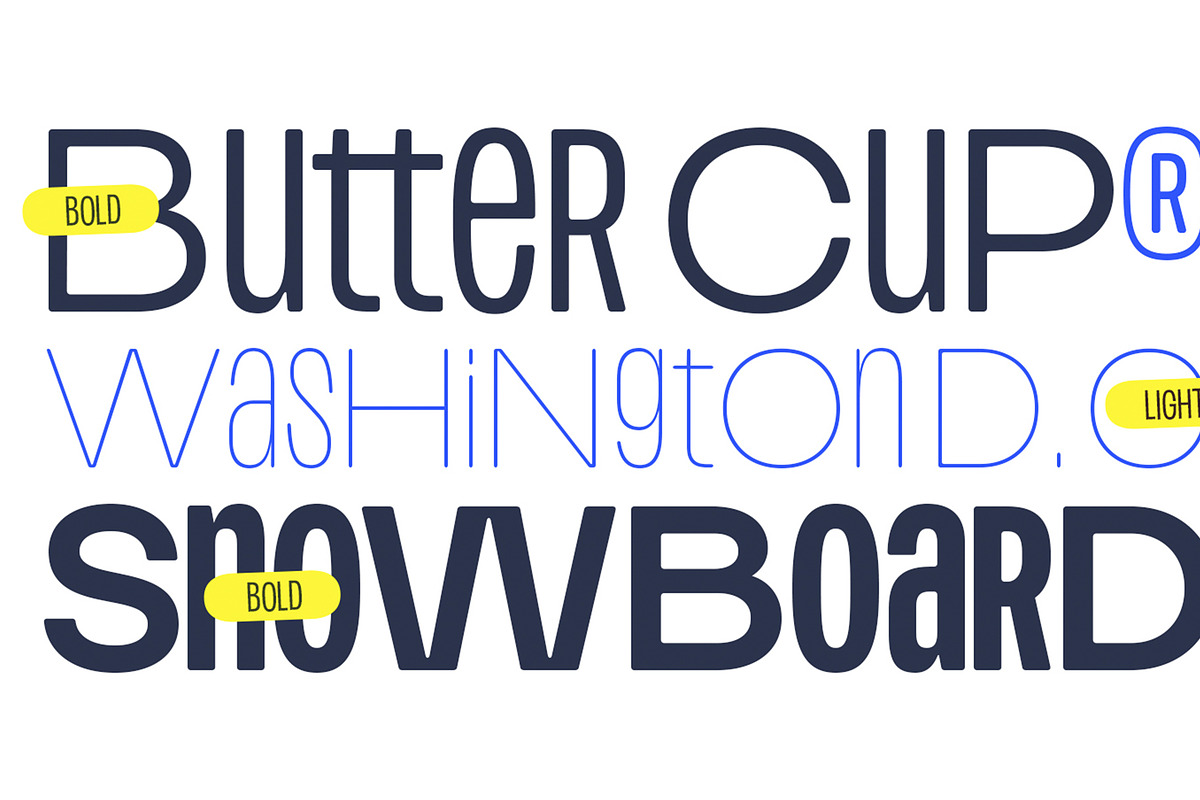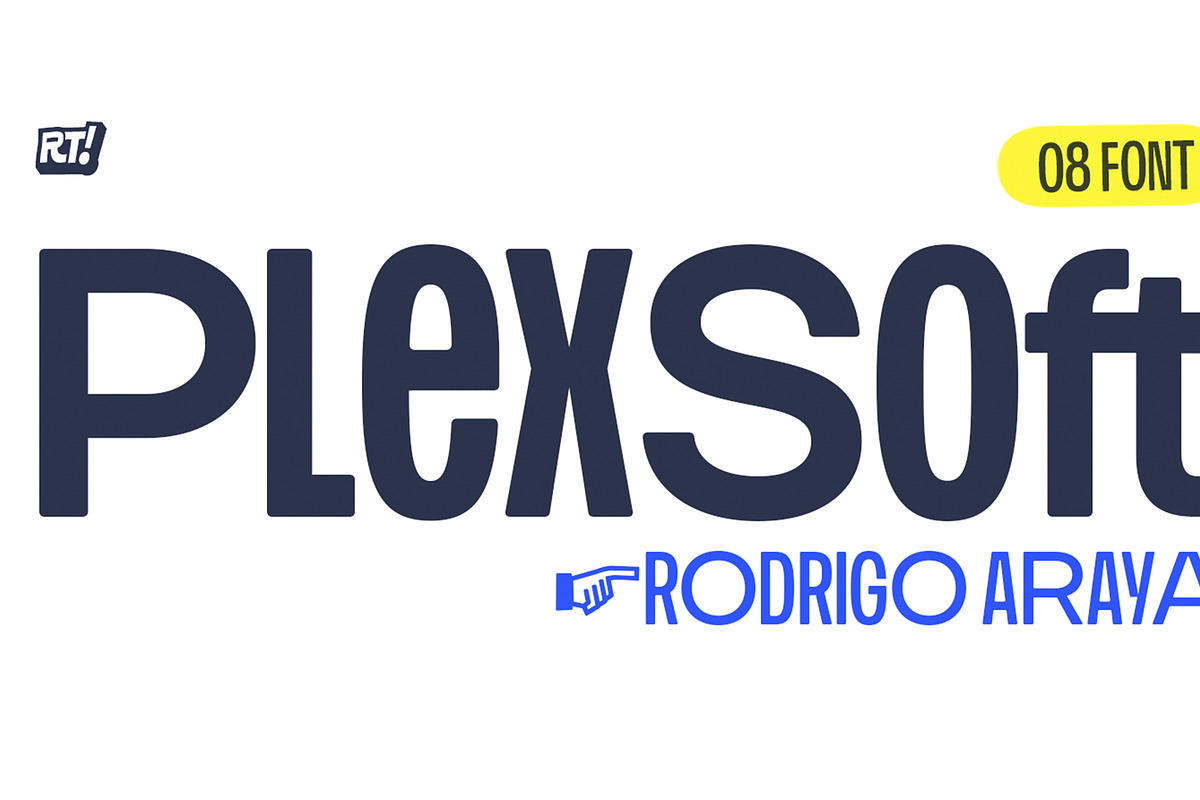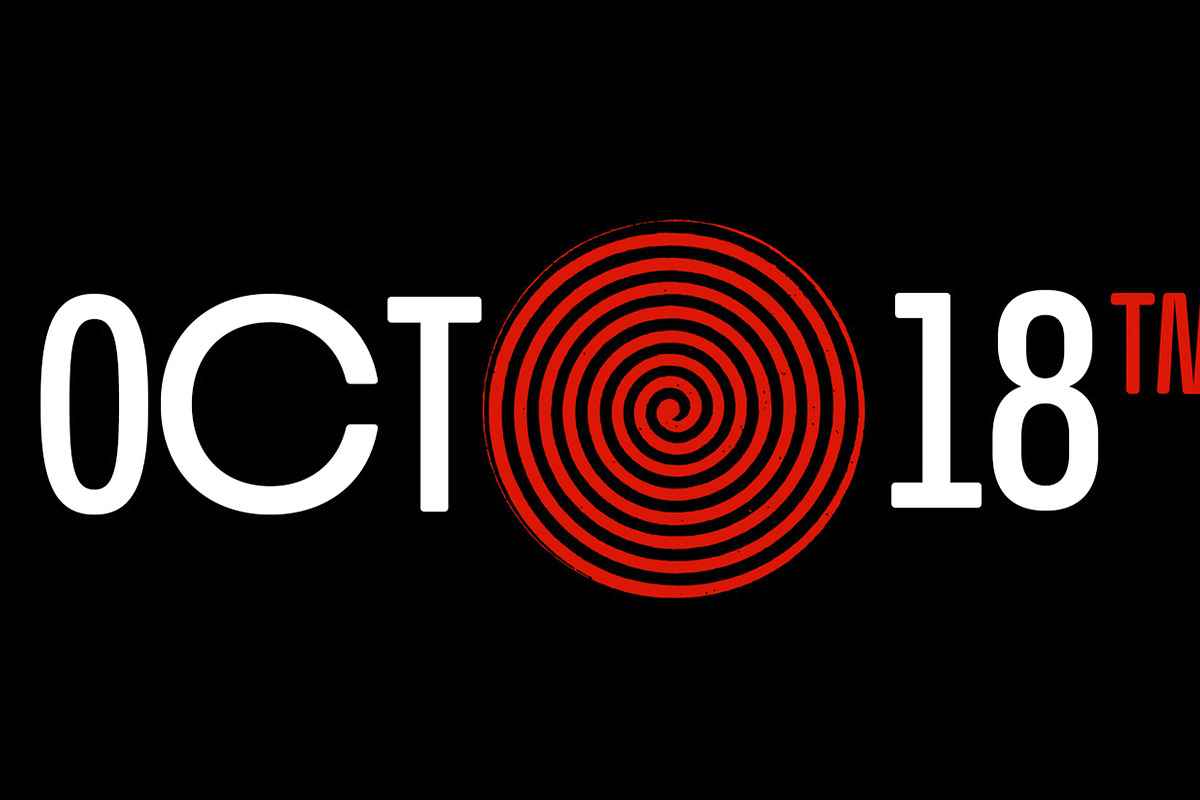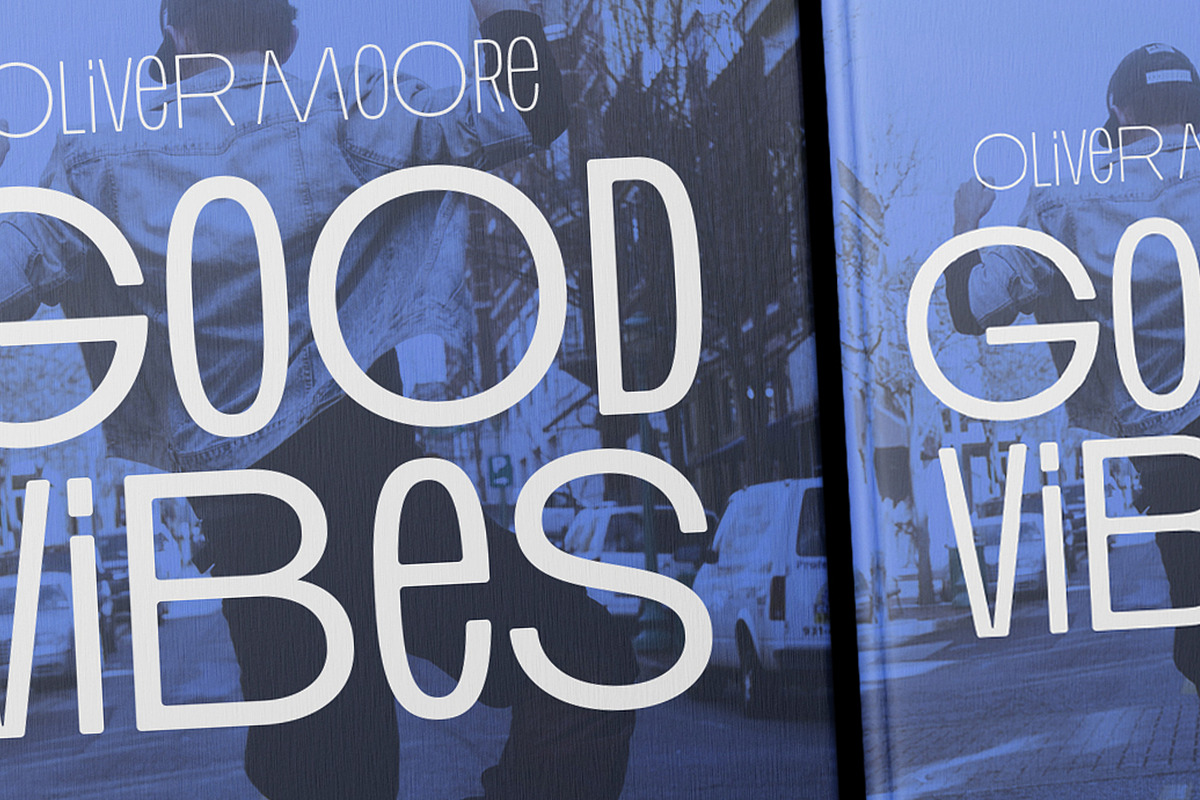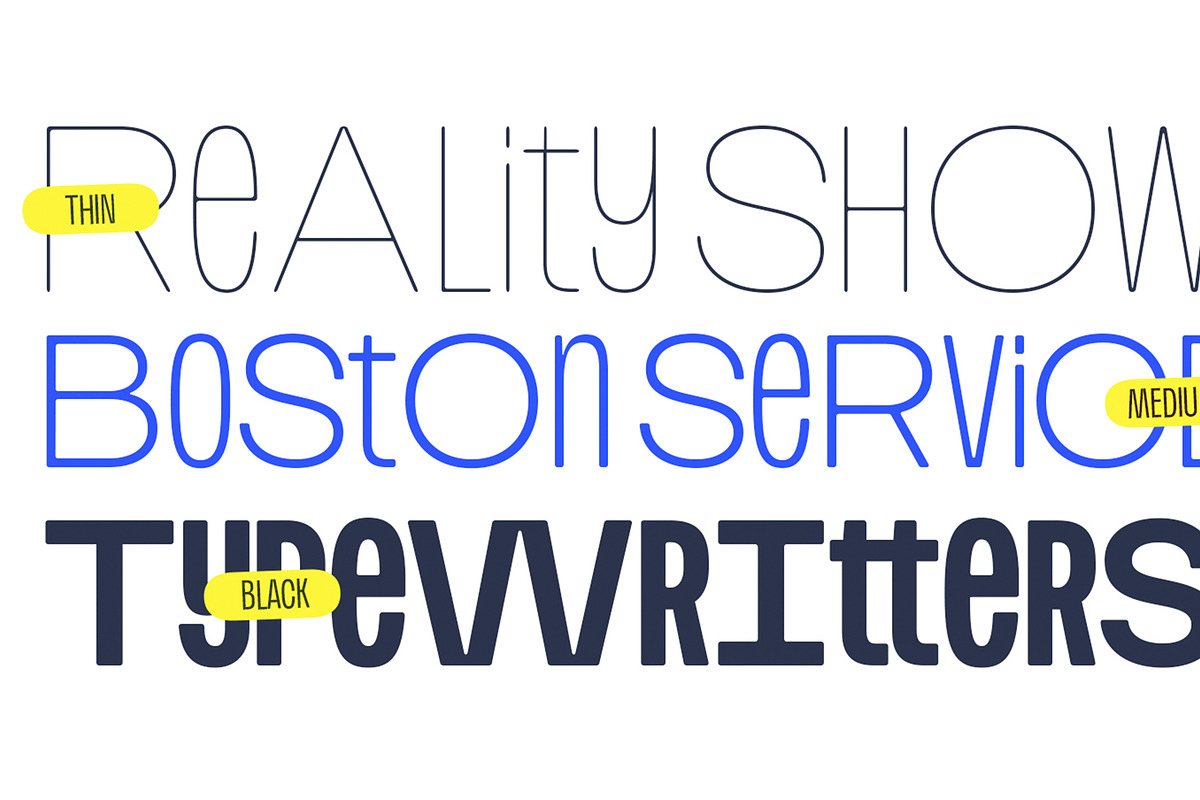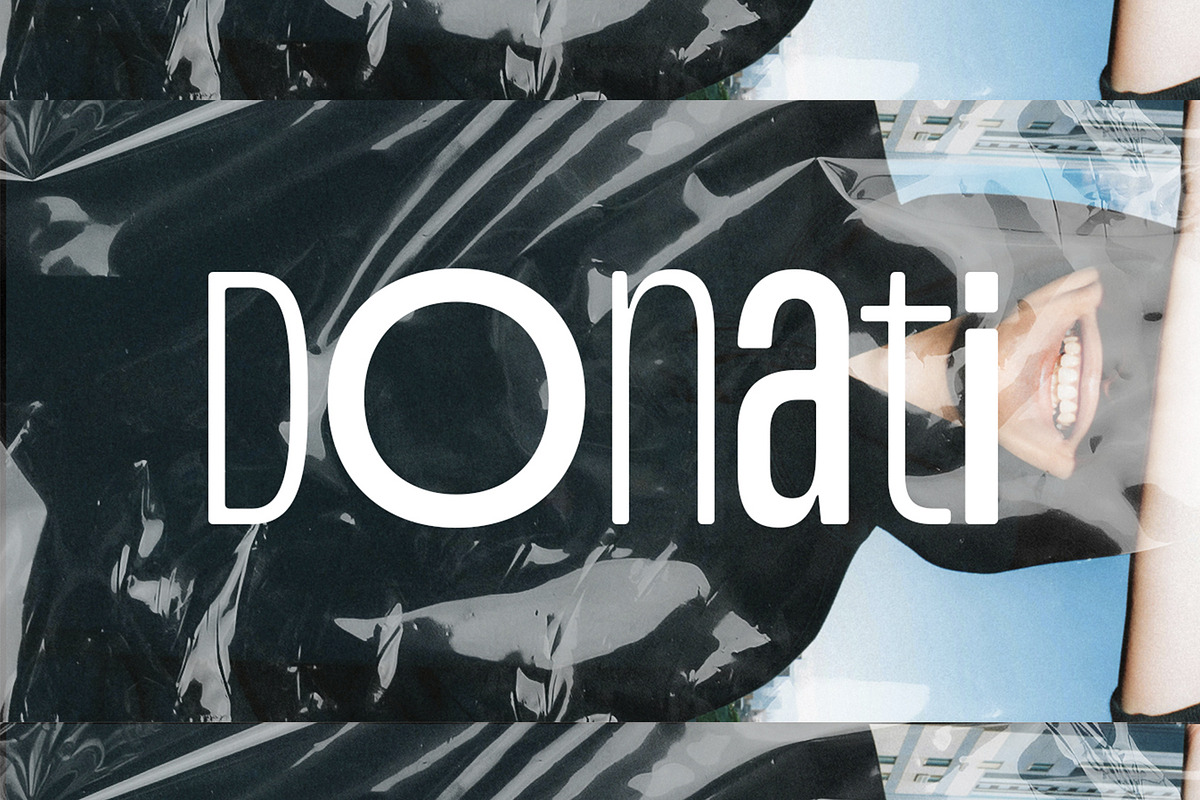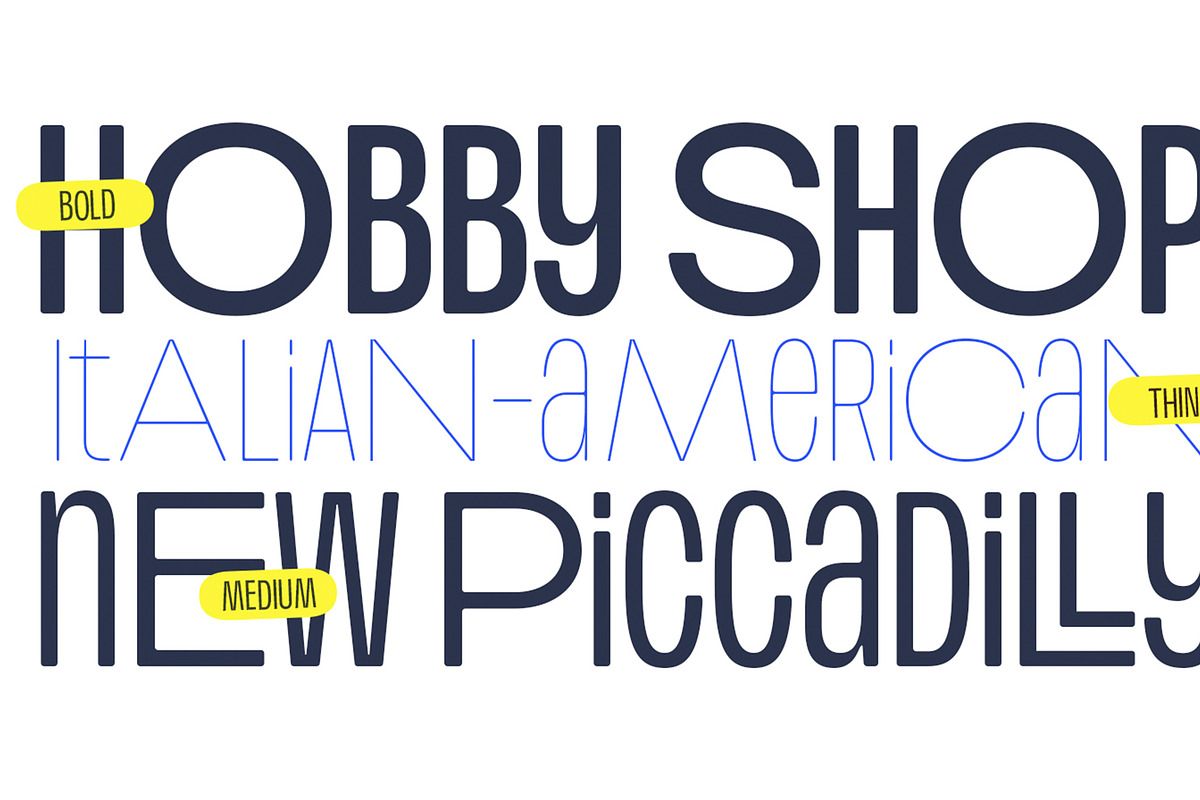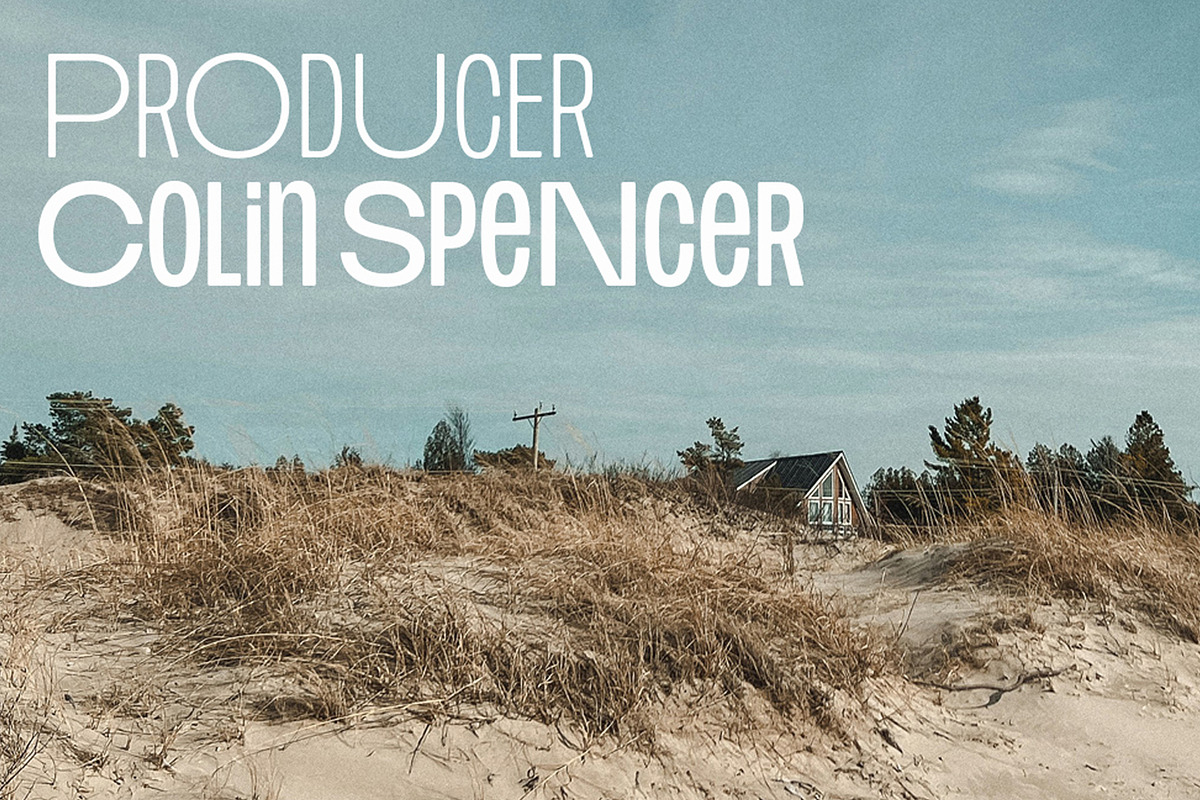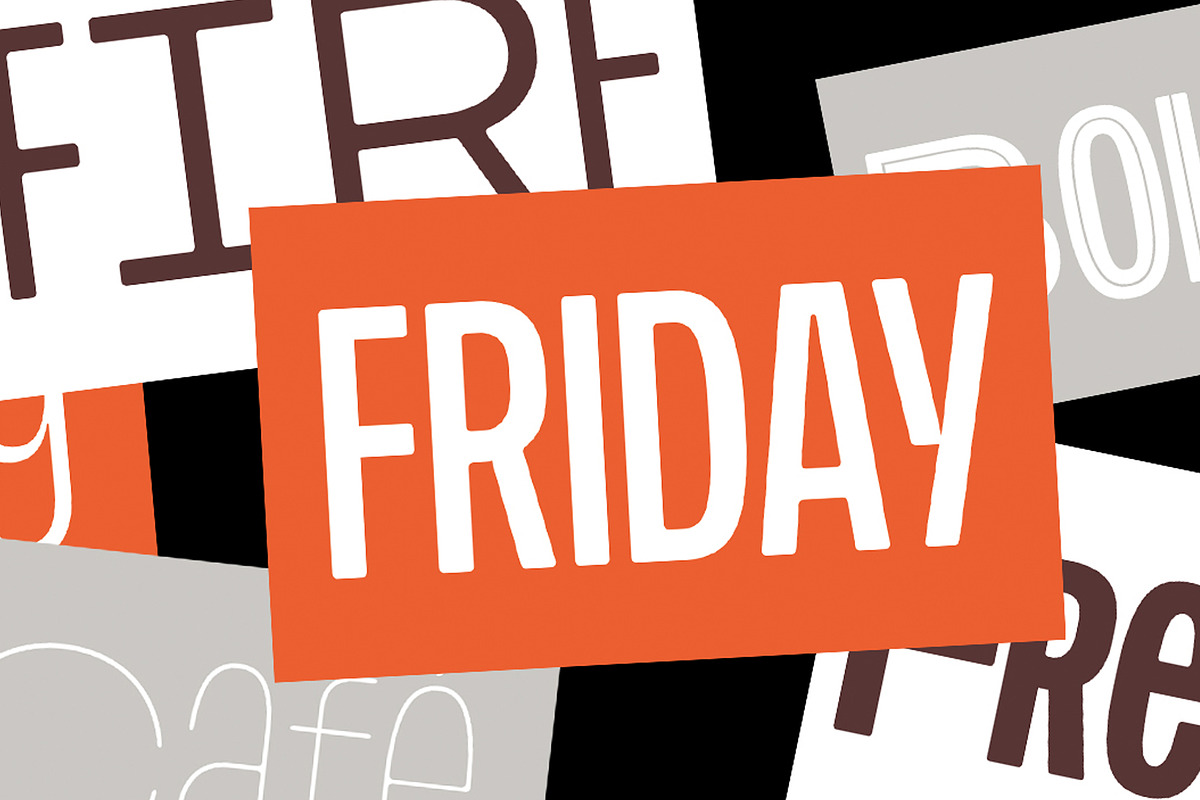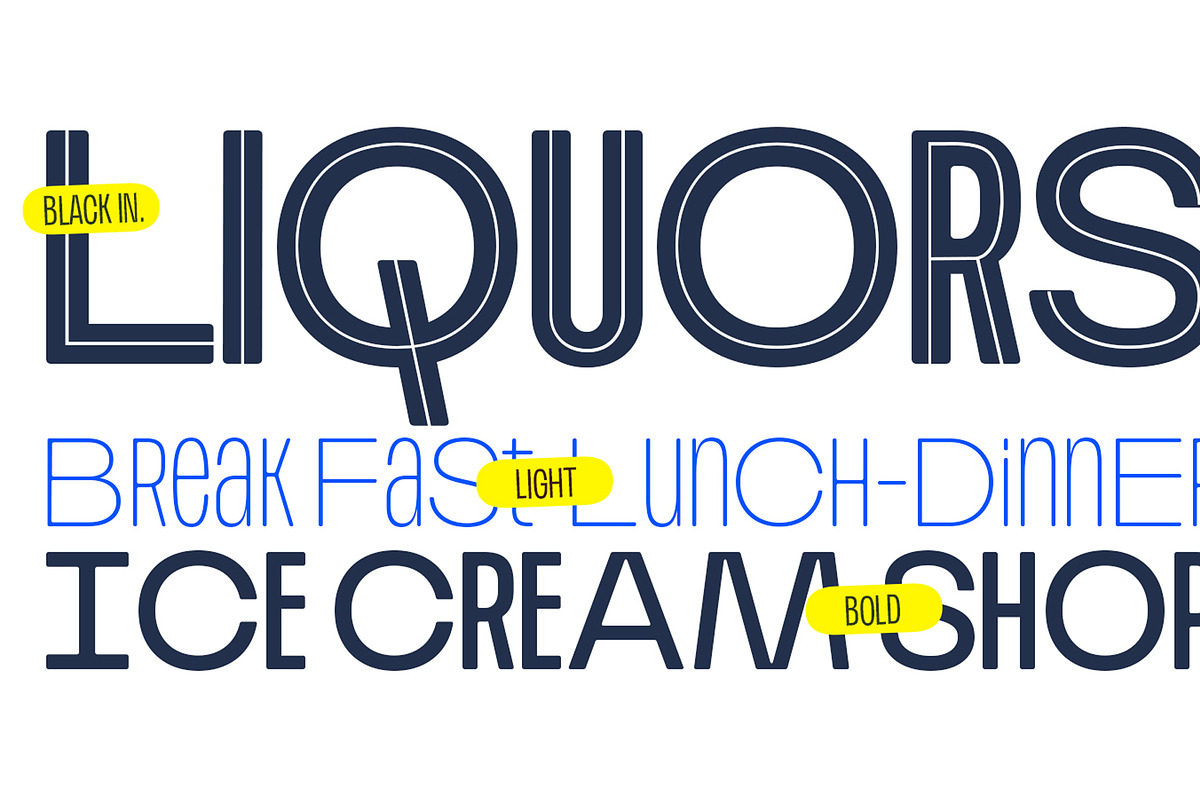
Plex Soft
Plex Soft is a rounded version of Plex Beta, it contains different weights in addition to containing Cyrillic and uppercase alternatives that make the title entertaining.